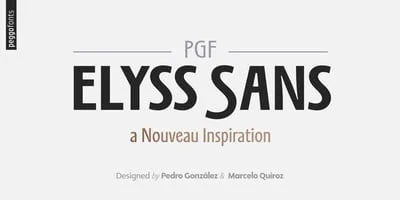
PGF Elyss Sans Font
PGF Elyss Sans Font is ideal for modern corporate branding, sleek website designs, contemporary magazine layouts, tech startup identities, minimalist packaging, professional presentations, clean editorial content, digital interface design, architectural documentation, and sophisticated business communications. This refined typeface brings effortless elegance and professional clarity to projects requiring modern sophistication and timeless appeal.
What makes PGF Elyss Sans Font exciting is its perfect harmonization of geometric precision with humanist warmth that creates an exceptionally versatile foundation for contemporary design excellence. The font features meticulously balanced letterforms with optimal proportions and refined details that ensure superior readability while maintaining distinctive character and professional appeal. Its sophisticated construction reflects current design trends while possessing timeless qualities that resist obsolescence, making it ideal for brands seeking to establish lasting visual identity with both modern relevance and enduring sophistication.
PGF Elyss Sans Font family encompasses comprehensive weight variations including Thin, Light, Regular, Medium, Semibold, Bold, and Black options, complemented by corresponding Italic and Condensed versions. Each style maintains the font's distinctive contemporary character while providing extensive typographic flexibility for complex multi-platform branding systems and professional design applications.
Whether you're developing modern brand identities, creating professional documentation systems, or designing contemporary digital experiences, PGF Elyss Sans Font provides the sophisticated typography needed for effective modern communication. This font seamlessly combines geometric precision with human warmth, making it an exceptional choice for projects requiring both technical excellence and approachable personality. Its expertly crafted letterforms ensure outstanding performance across digital screens, print materials, and large-scale applications where contemporary typography makes the critical difference in professional presentation and brand credibility.